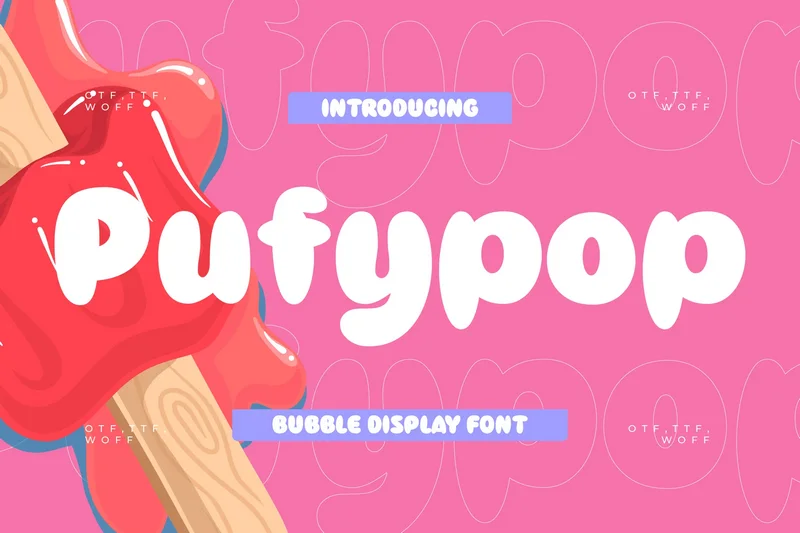
Pufipop Bubble Display Font
Pufipop bubble display font is a unique, modern geometric font with a unique, elegant bubble and geometric style. It is a display font perfect for branding projects, logos, social media posts, product packaging, labels, etc.